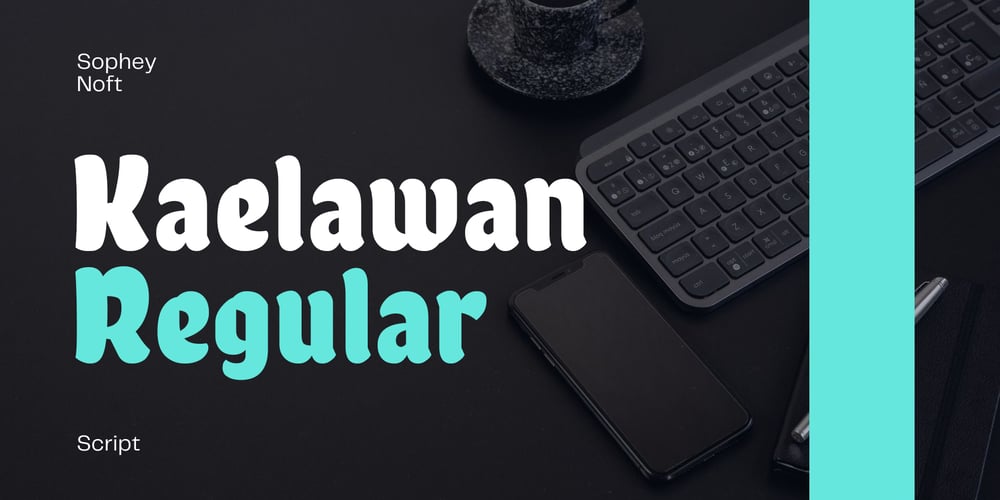
Kaelawan Font Family was designed by Yoseph Junaidi and published by Sopheynoft. Kaelawan contains 1 styles and family package options. Kaelawan Regular is a beautiful and versatile script font that is perfect for a variety of design uses. It features elegant, flowing lines that are both feminine and elegant. Kaelawan Regular is also highly legible, making it a great choice for both print and digital designs.Possible design uses for Kaelawan Regular: Invitations and wedding stationery Logos and branding Social media graphics Product packaging Website design Book covers and magazines Greeting cards and posters And much more! What makes Kaelawan Regular unique: Kaelawan Regular has been carefully crafted to be both elegant and legible. The flowing lines and graceful curves give the font a touch of femininity, while the clear and concise letterforms make it easy to read. Kaelawan Regular is also highly versatile. It can be used for a variety of design purposes, from formal invitations to fun and whimsical social media graphics. Functional aspects of Kaelawan Regular: Kaelawan Regular is available in OpenType format. Kaelawan Regular includes a variety of special features, such as ligatures and alternates.